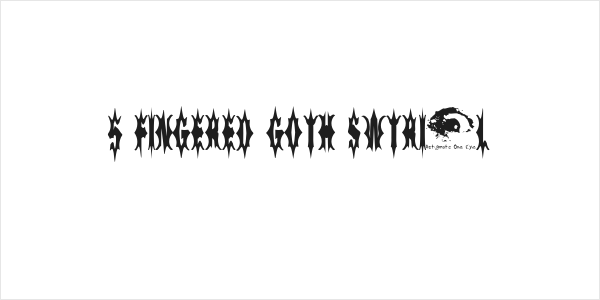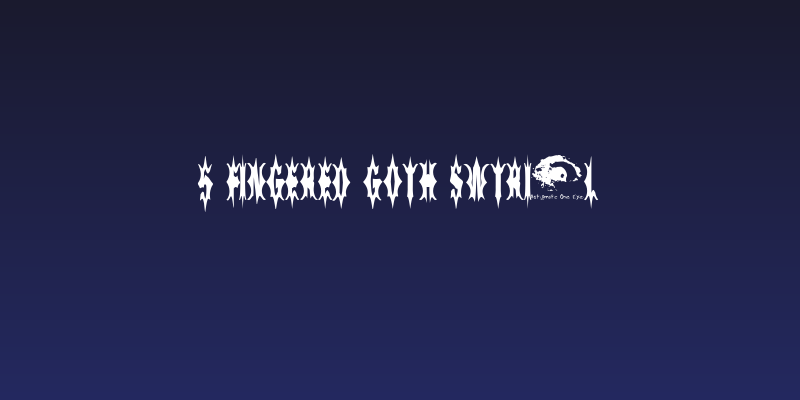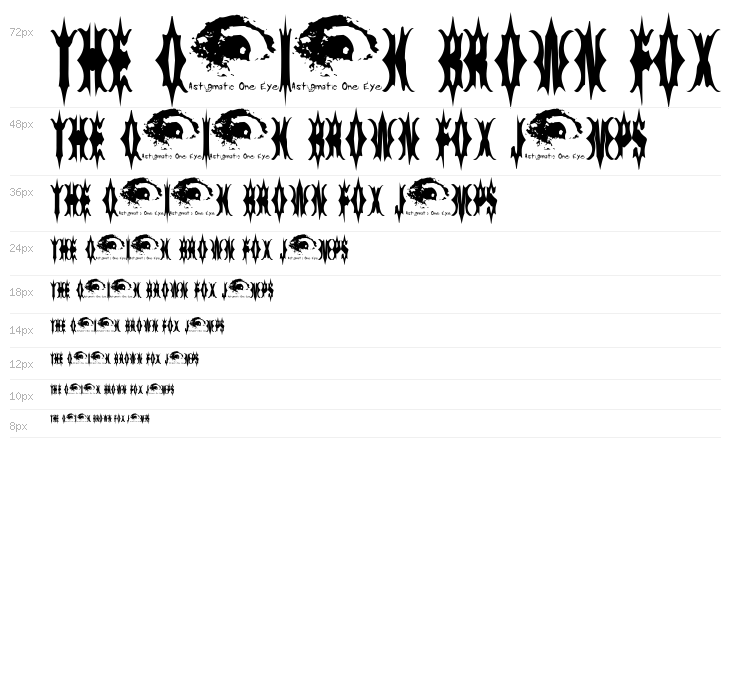
5 Fingered Goth SWTrial Font
5 Fingered Goth SWTrial Description
This font features a highly decorative and gothic style with sharp, elongated serifs and intricate detailing. The characters are bold and dramatic, with a distinct medieval influence that gives them a mysterious and edgy appearance. The uppercase letters are particularly striking, with exaggerated spikes and curves that create a sense of movement and intensity. The lowercase letters maintain a similar aesthetic, though they are slightly more subdued. The special characters are equally ornate, adding to the overall cohesive design. This font is ideal for projects that require a bold, eye-catching typeface with a gothic or fantasy theme.
| Overall Style | Gothic, Decorative |
| Proposed Projects | Ideal for use in fantasy book covers, gothic-themed posters, album art for metal bands, or any project requiring a dramatic and edgy typeface. |